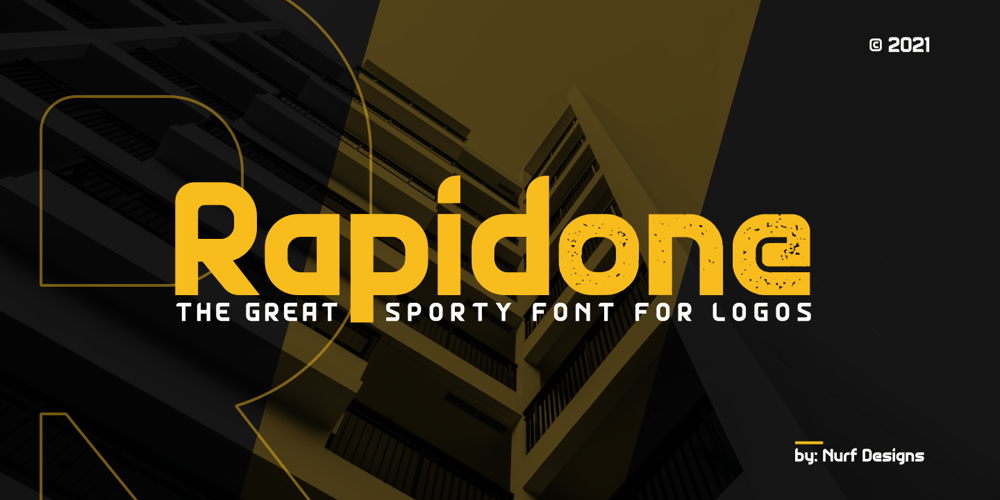
Rapidone Font Family was designed by Nur Faidin and published by Nurf Designs. Rapidone contains 2 styles and family package options. Rapidone is a display font with a sporty style. This font is perfect for Logotype, branding and all things sports related. This font comes with 2 types variations, namely Solid and Rough, both of which have their respective advantages. Works on PC & Mac Simple installations Accessible in the Adobe Illustrator, Adobe Photoshop, Adobe InDesign, even work on Microsoft Word. PUA Encoded Characters – Fully accessible without additional design software.